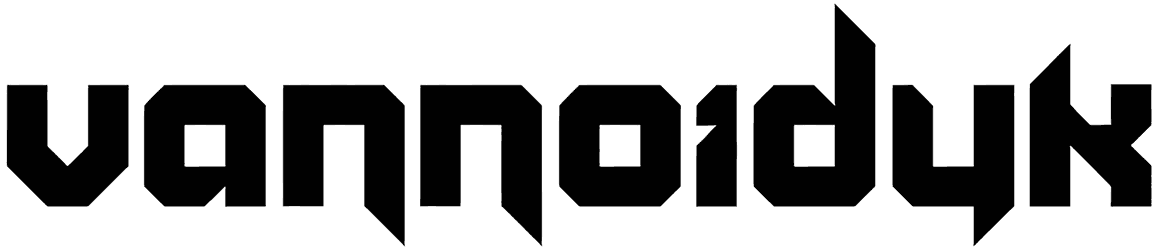
If you have a tendency to a techno font that comes with a modern and elegant style, Vannoidyk would really deserve to be on your radar. This square font comes with sharp edges and carries a sense of seriousness, tenderness, drama, or dynamism.
Since it offers two distinctive styles, it lets you add a good variety to your posters, logos, video game banners, stickers, or editorial projects. So, utilize this masterpiece without paying attention to the lack of uppercase letters.